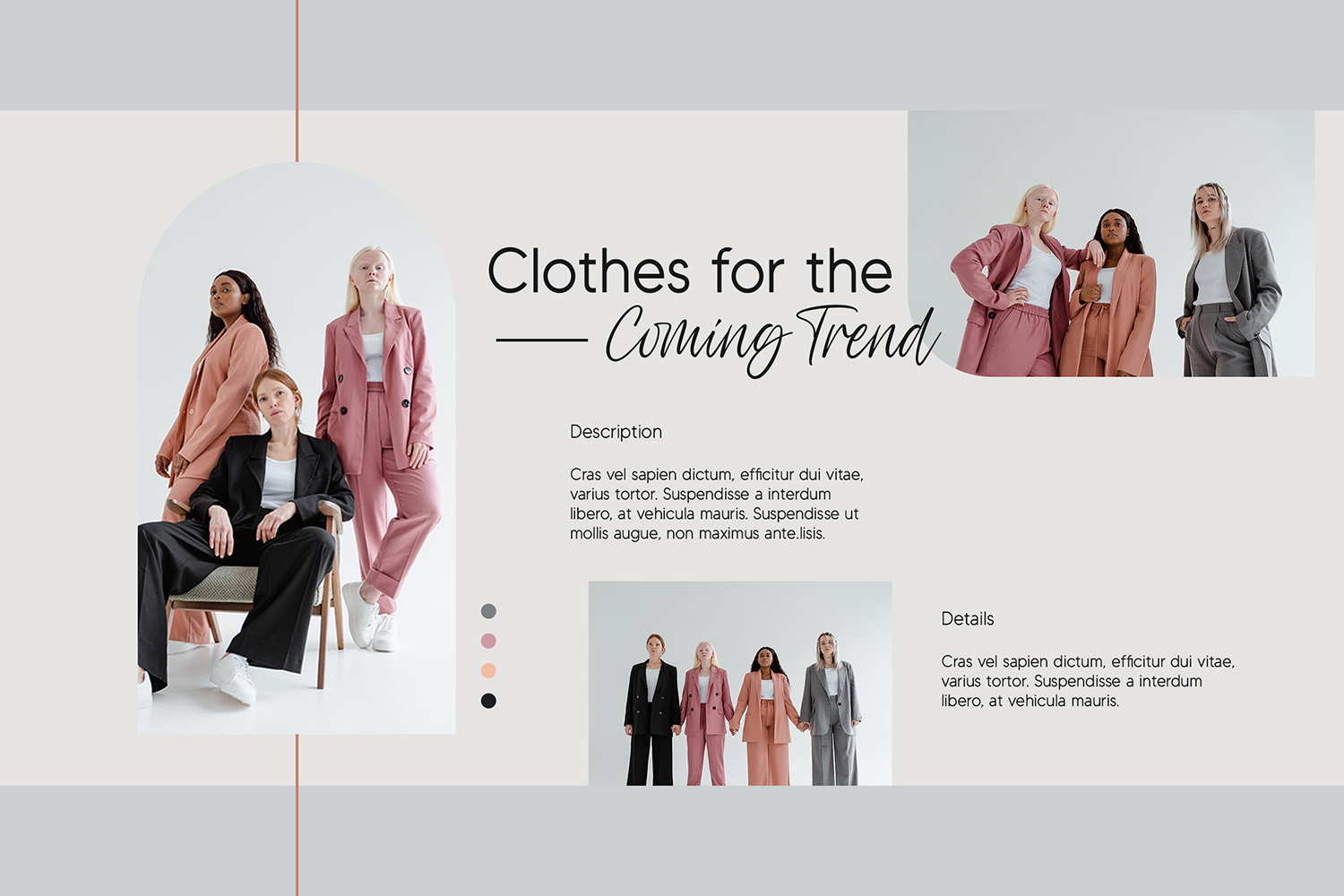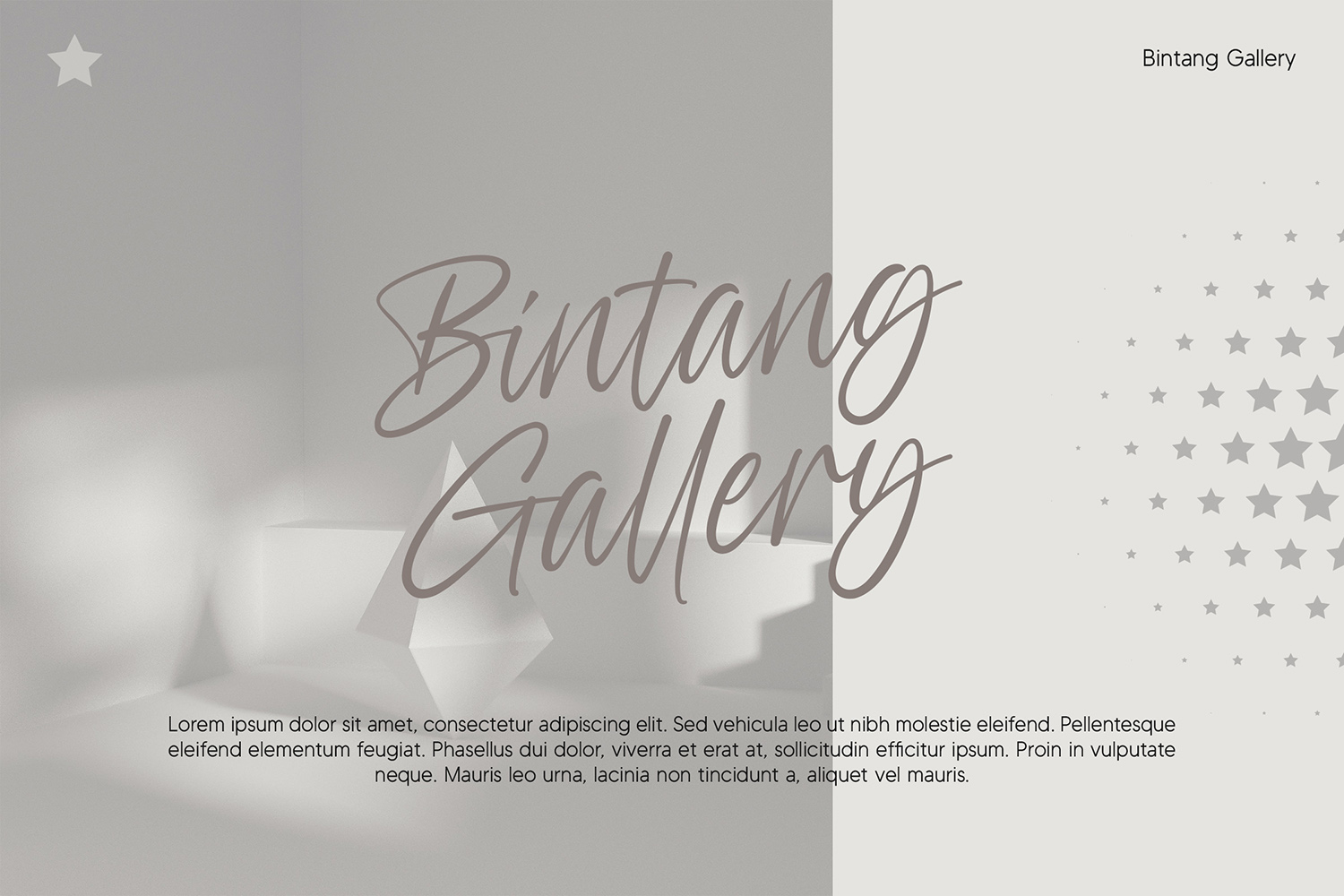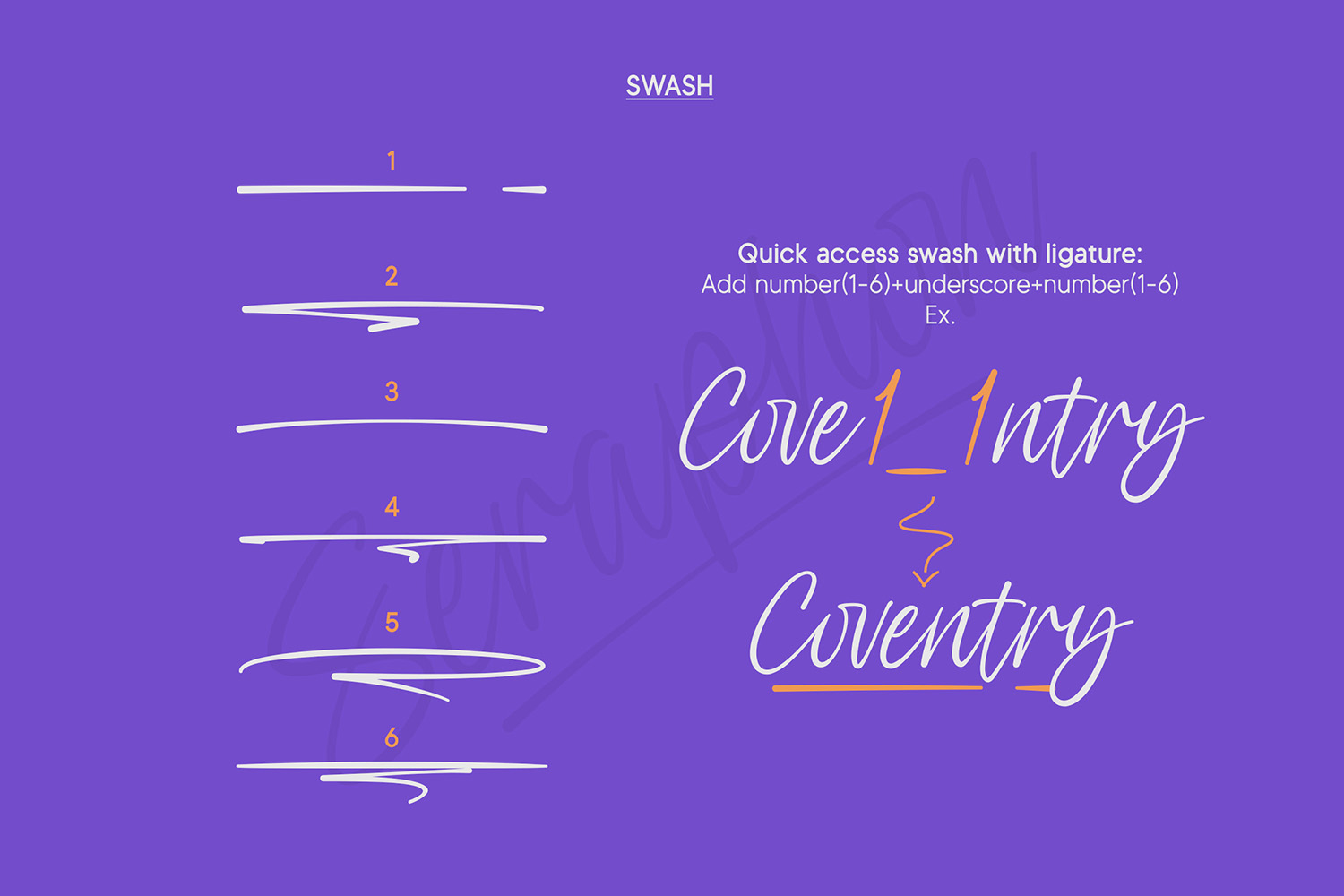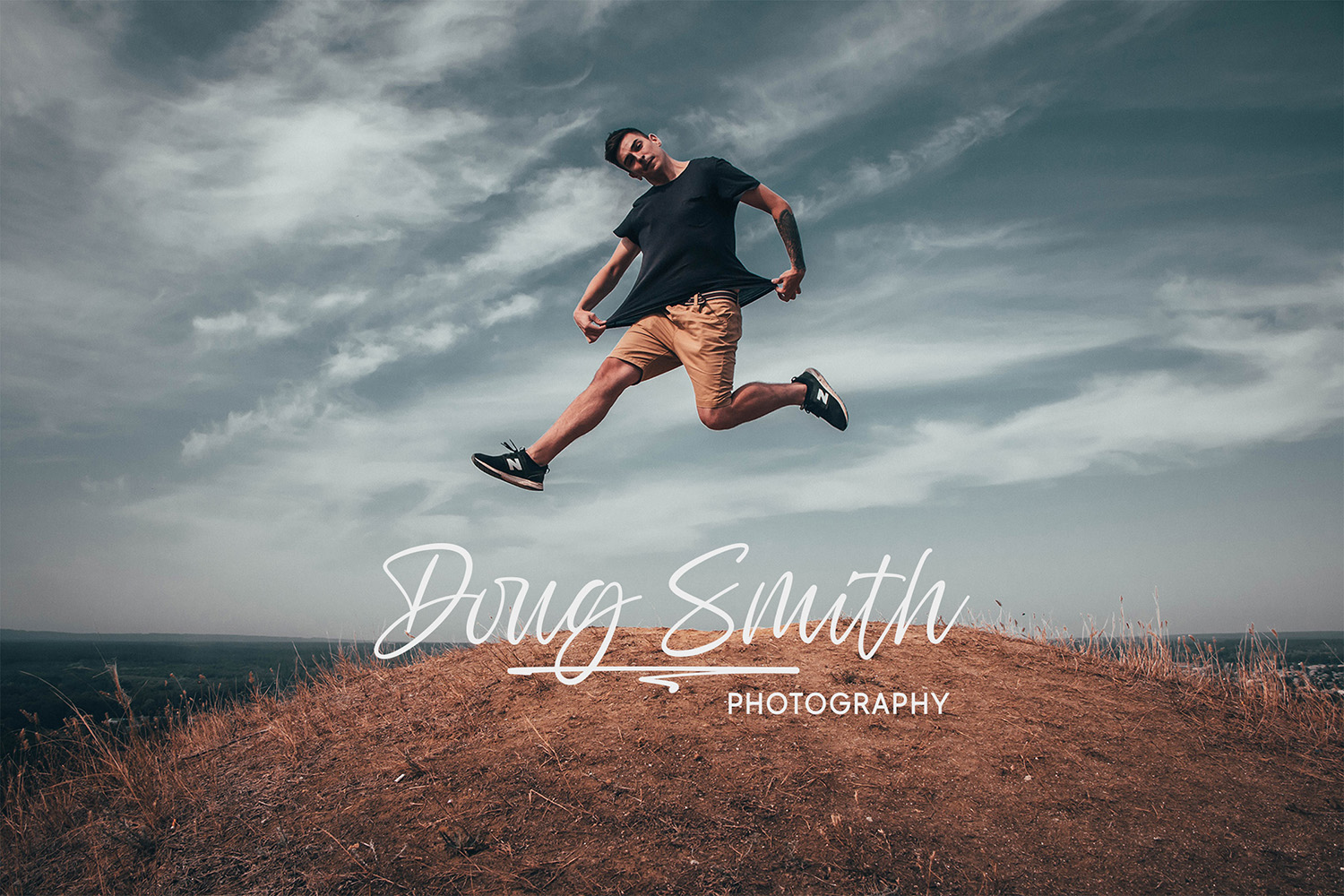
Seraphon Free Font
The handwritten Seraphon Free Font is a beautiful and emotional typeface that captures the essence of human connection and creativity. With its flowing, organic lines and natural, human-like handwriting, it brings a sense of warmth and personality to any project. Whether you’re using it for personal correspondence, invitations, or social media posts, Seraphon Free Font will add a touch of humanity and soul to your words. Its unique character and charm make it perfect for any project that requires a personal touch, and its versatility ensures that it can be used in a wide range of applications. So if you want to add a dash of emotion and personality to your next project, consider using Seraphon Free Font.